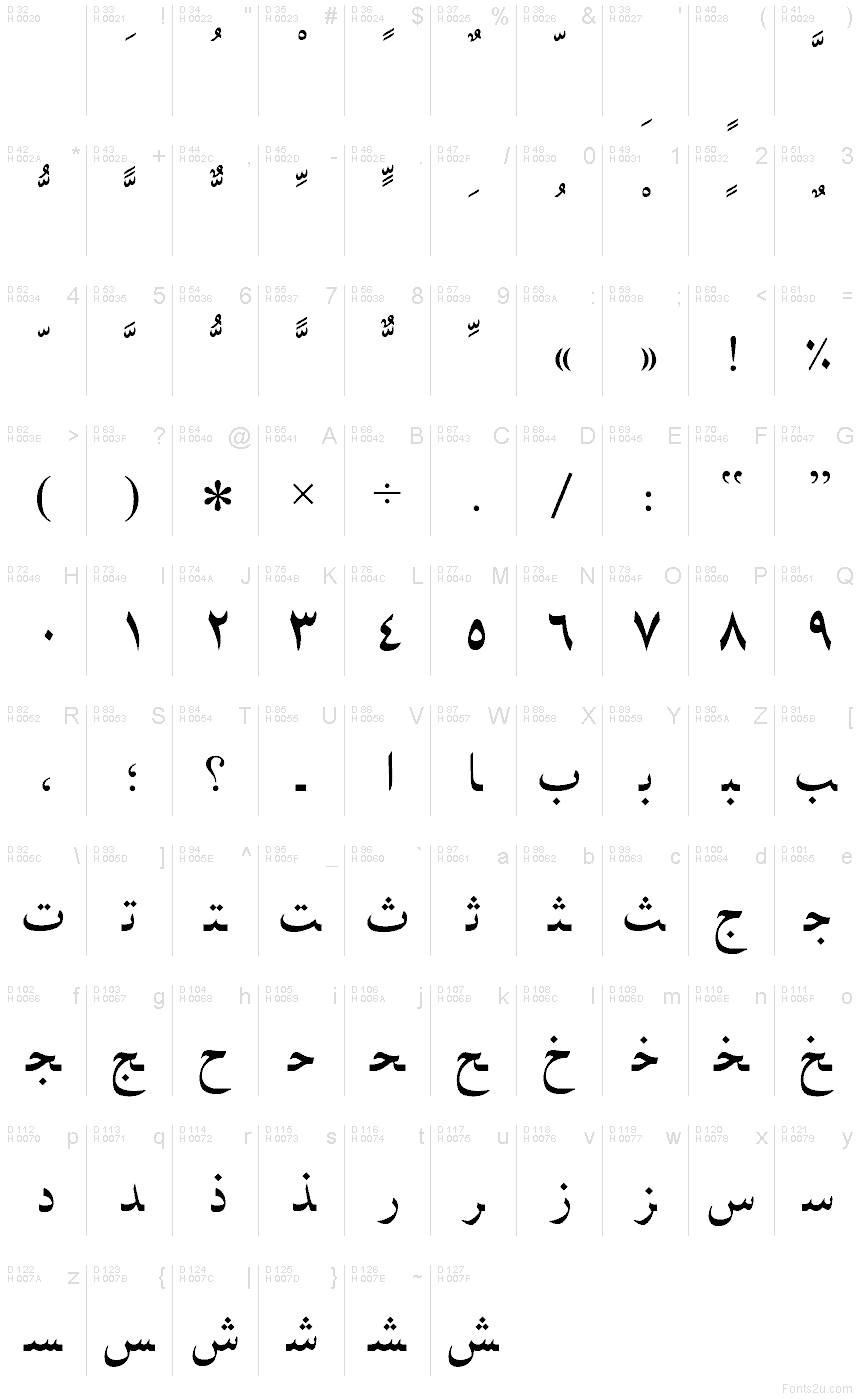
WPS Arabic ITC Regular
WPS Arabic ITC font perfectly embodies the charm of traditional handwriting calligraphy, combining simple geometric beauty with contemporary elegance. This free Arabic display font comes as a quick solution to all your copywriting projects.
It is suitable for not only overlaying on an advertising image but also in longer texts used in official documents. Body text and headlines are some additional great ideas.